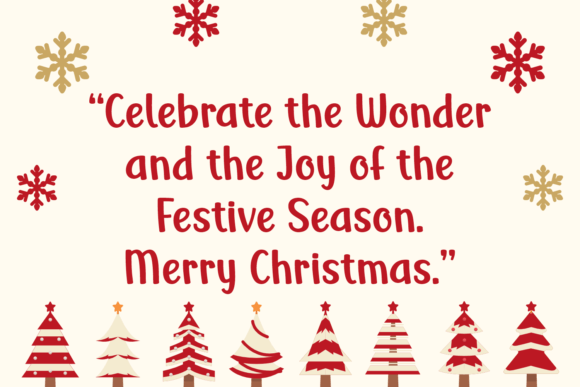
Peace on Earth Font
Peace on Earth is a cheerful and bright handwritten font. With its neat and joyful personality, this font will enhance any project you wish to create!